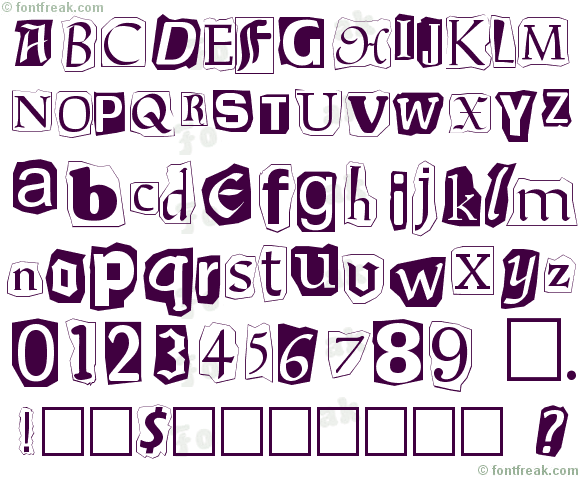
Ransom
About Ransom
The Ransom font, designed by Divide By Zero, is a distinctive display typeface that captures the essence of playful yet edgy design. With its unique blend of irregular letterforms and varying stroke weights, Ransom stands out as a decorative font that evokes a sense of spontaneity. The characters exhibit a mix of bold and delicate elements, creating an engaging visual rhythm that draws attention. The spacing between letters is thoughtfully crafted to maintain legibility while enhancing its artistic flair.
This font is particularly well-suited for a variety of creative applications. It shines in contexts such as movie posters, where its striking appearance can convey a sense of drama and intrigue. Restaurant menus can benefit from Ransom’s unique style, offering a quirky touch that complements modern or themed dining experiences. Additionally, it can be effectively used for event flyers, particularly for informal gatherings or parties, where a lively aesthetic is desired. Graphic designers and content creators will find Ransom to be an excellent choice for branding projects that aim to stand out in a crowded market.
In conclusion, Ransom font free download offers a unique opportunity for creatives to incorporate a vibrant and unconventional typeface into their work. Its playful nature, combined with its distinct visual characteristics, makes it a standout choice for anyone looking to make a memorable impact through typography. Whether used in print or digital media, Ransom is sure to capture attention and inspire creativity.